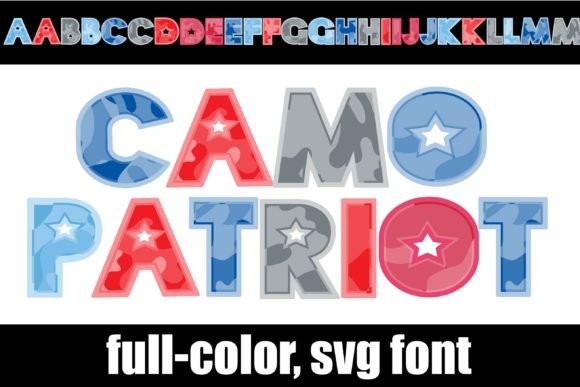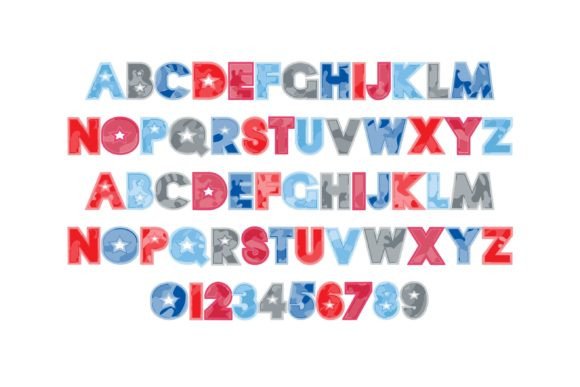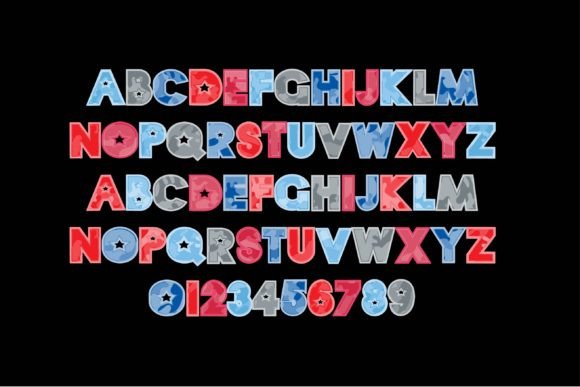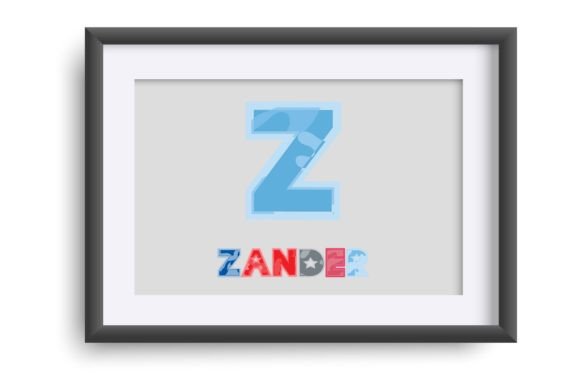
Camo Patriot Font
About the Camo Patriot Font
Experience the unique personality of Camo Patriot Font, a font designed for impact. This full-color font features a patriotic style camo print. There is an alt case w/ additional colors you can access through your system or Silhouette’s glyph map. This font works best for titles, displays, posters and more. Please note color fonts will show as black in non compatible programs. This font type is compatible with Silhouette Studio.